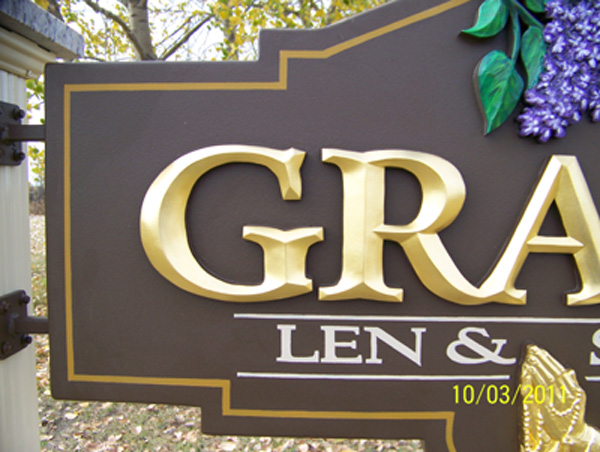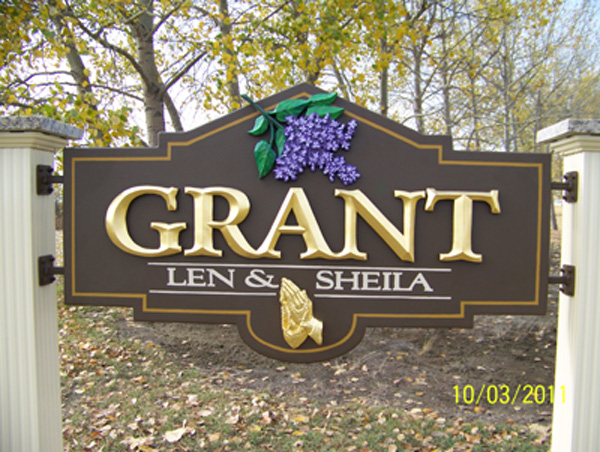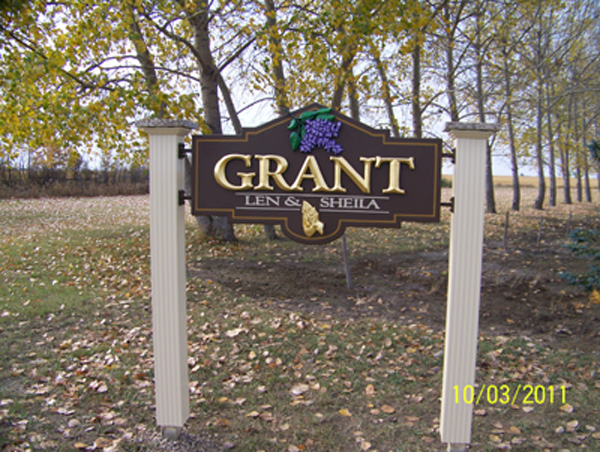
Gilded yard sign
This is the sign we installed today. The landscaping is not completed. The raised letters, lilacs and hands are all hand cut and carved HDU The sign is finished with Benjamin Moore Aura on HDU with a steel insert frame. The letters and hands are gilded with 23kt gold. The treated posts are covered with a fluted aluminum sleeve. We cut 1 1/4 inch thick granite for the post caps. The sign is 48 inch x 28 inch.
Looks Dy-no-mite Pat
So, is the background two layer of HDU sandwiched together with steel frame inside?
Yes Ron, this is two layers of one inch HDU, routed to allow a 3/4 inch box steel frame to sit in...There is paintable silicon only where the steel frame comes thought the HDU on the ends. This allow the steel frame freedom to expand and contract in the heat and cold since HDU does not expand. the routed groove to hold the steel frame is also made slightly bigger to allow for this movement. If you didn't allow for the movement of the steel frame there could be a chance for the HDU splitting or cracking...the two one inch pieces of HDU are glued together and I use screws counter sunk from the back as clamps. I counter sink the screw well enough to put in an HDU plug which we make to fit the hole, glue them in and flush cut them to the back...We use a high build automotive primer which seals and hides any of the small imperfections from the plugs... (before priming, all raised elements are also glued on.) I use a polyurathene glue to glue up everything (acetone can be used to cleanup before the glue sets). Hope this helps. Pat.
That's a great looking sign!!!
I especially like to see raised prismatics done right. The distortions done to raised prismatics by CNC's really set me off.
Very nice job.